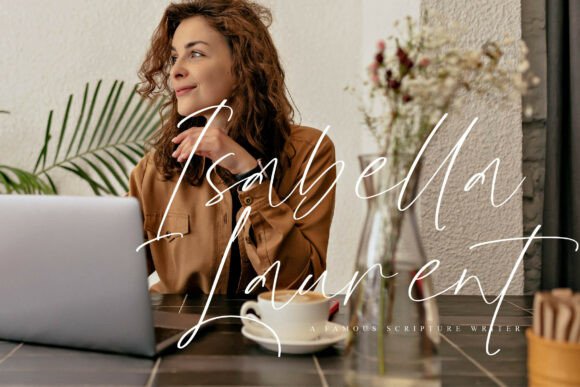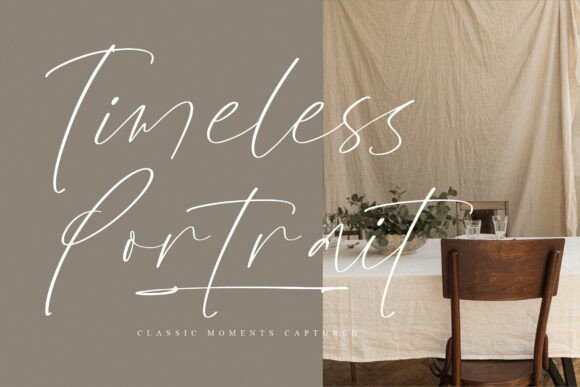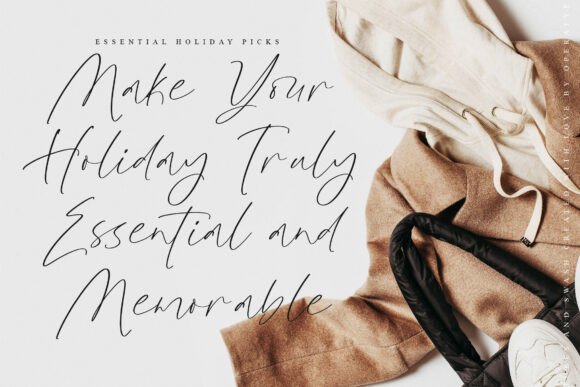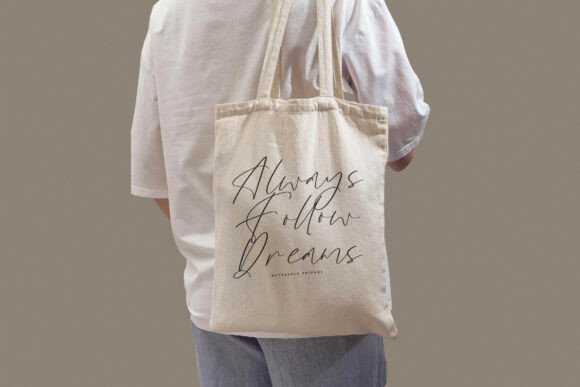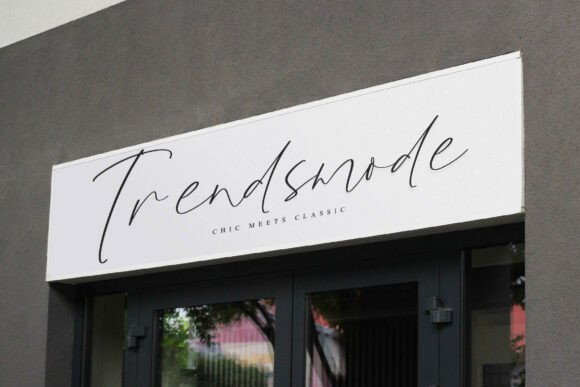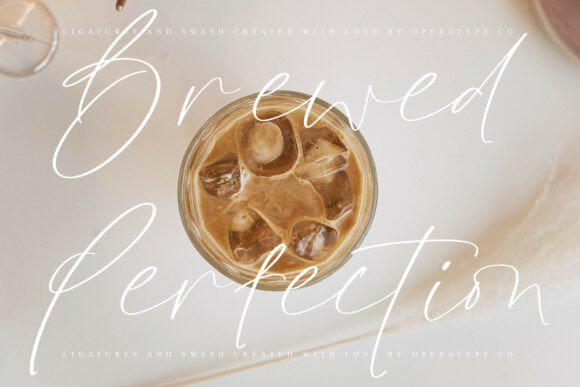
🌟 Elegant & Versatile Script Font for a Luxurious and Captivating Touch 🌟
Are you looking for a font that adds a touch of luxury and elegance to your design projects? I certainly was, and that’s how I stumbled upon Butterfly Friends, a script font that’s been a game-changer for my designs.
The Design Moment That Changed Everything
I recall working on a branding project for a high-end jewelry client. The goal was to create a sophisticated and luxurious feel, but I was struggling to find the perfect font. I had tried several script fonts, but they either looked too formal, too casual, or just didn’t have the right flair. That’s when I discovered Butterfly Friends, and it instantly elevated my design to a whole new level.
Getting to Know Butterfly Friends
Butterfly Friends is a script font crafted with a flowing and sophisticated style. Each character is uniquely designed to mimic natural handwriting, giving your text a polished, professional look. Here are some of its key features:
- ✨ Elegant and Modern Appeal: Ideal for logos, branding, invitations, and other creative designs.
- ✅ Easy to Customize: Includes alternative characters, ligatures, and swashes for a more personalized look.
- 🌎 Multilingual Support: Equipped with international characters for wider usability.
- 📱 Responsive Display: Looks stunning on both small and large screens, in print and digital formats alike.
- ✨ The elegant and modern appeal of Butterfly Friends makes it perfect for high-end designs.
- ✅ The font is highly customizable, with alternative characters, ligatures, and swashes.
- 🌎 The multilingual support is a huge plus, making it usable for a wide range of projects.
- 🤔 The font can be a bit overused, so make sure to use it sparingly to maintain its impact.
- ⚠️ Some users may find the font a bit too ornate for certain projects, but this is largely a matter of personal taste.
The Designer Inspiration Behind Butterfly Friends
The story behind Butterfly Friends is one of passion and creativity. The designer, inspired by the beauty of nature and the elegance of handwriting, set out to create a font that would capture the essence of luxury and sophistication. With Butterfly Friends, the goal was to create a font that would be both versatile and elegant, perfect for a wide range of design projects.
Q: What is the best way to use Butterfly Friends in my designs?
A: The best way to use Butterfly Friends is to use it sparingly, as a headline or title font, and pair it with a simpler font for body text.
Q: Is Butterfly Friends available in different languages?
A: Yes, Butterfly Friends supports multiple languages, making it a great choice for international designs.